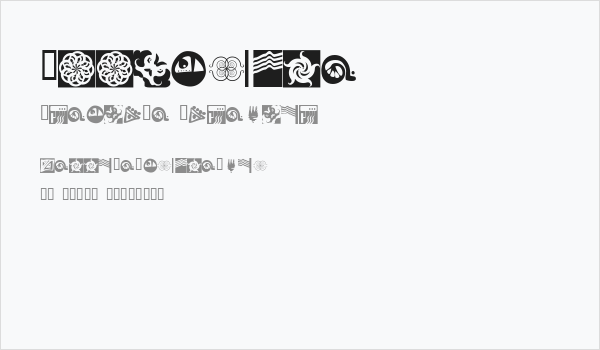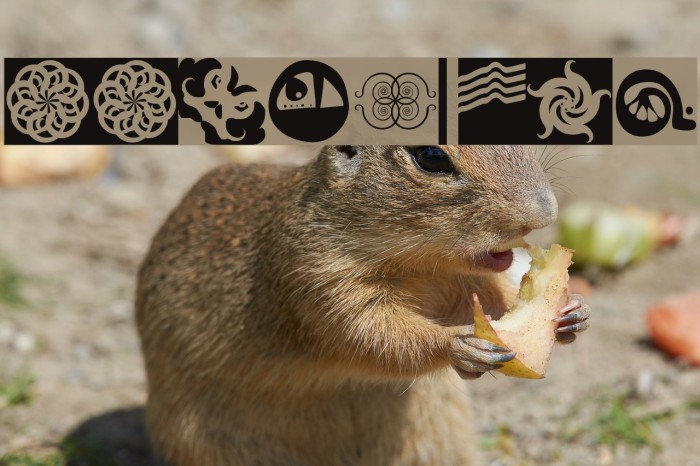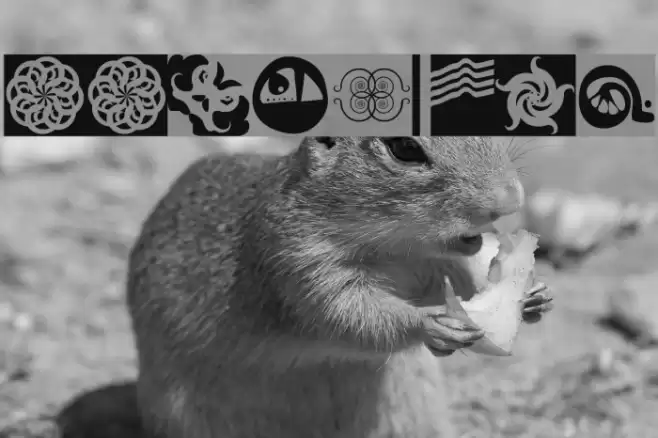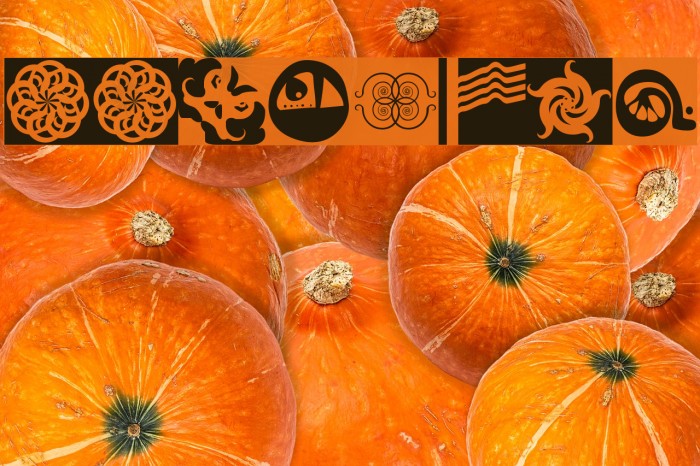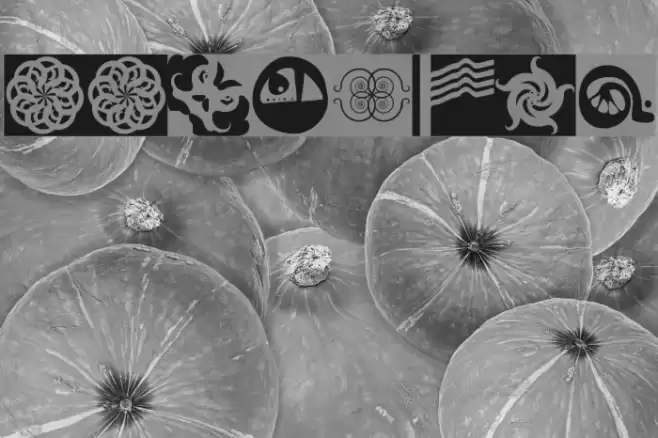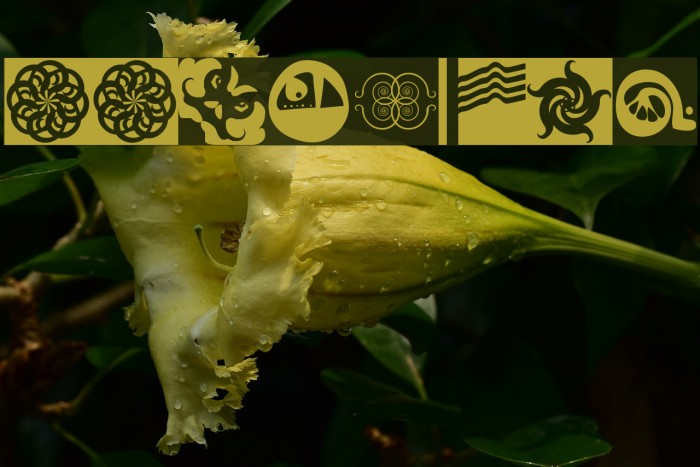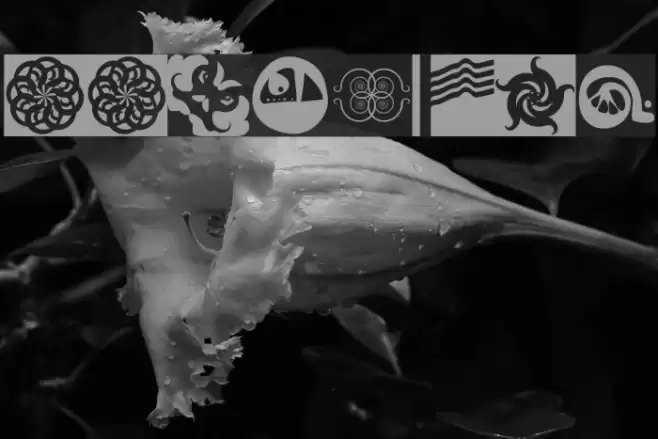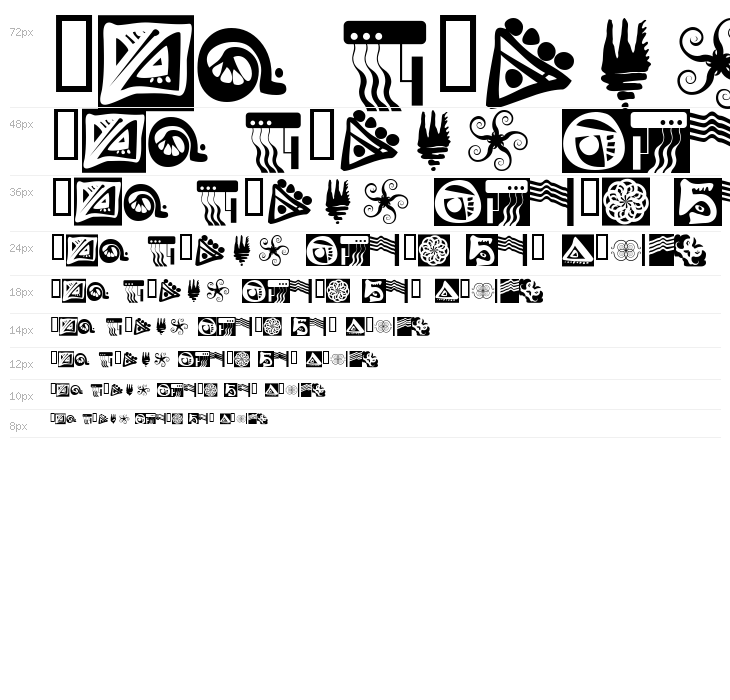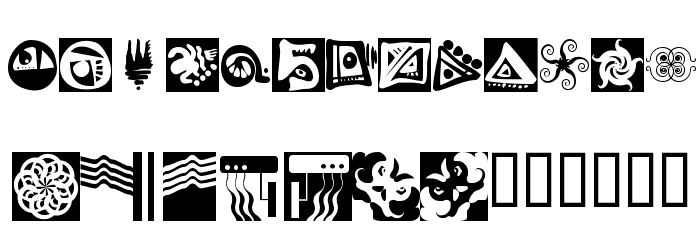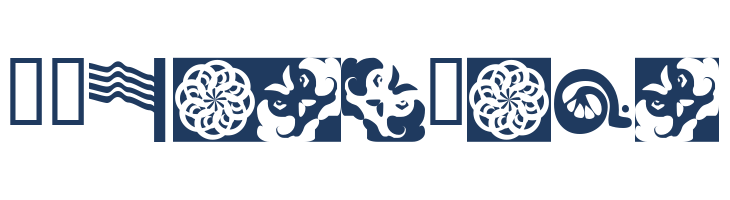
Annsample Font
| 用途 | Artistic designs, Illustrations, Decorative elements |
| おすすめプロジェクト | These symbols could be used in graphic design projects, such as creating decorative borders, artistic illustrations, or unique branding elements. |